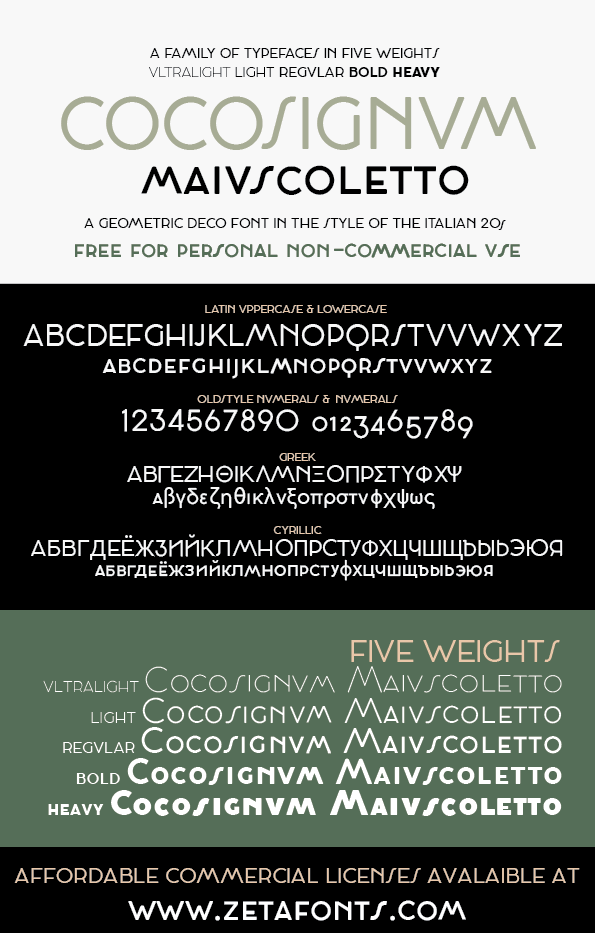
COCOSIGNUM Maiuscoletto takes inspiration from the typography of the italian thirties. The imperial uppercase with its propaganda deco overtones is softened by a cursive lowercase geometric script in the Corsivo Italico version. It comes in two styles and five weights, covering over forty languages using latin alphabet, as well as greek and cyrillic. ---- This font is for PERSONAL USE ONLY! For commercial license please visit our site: http://www.zetafonts.com/cocosignum For more info on our licence: http://www.zetafonts.com/licensing CONTACT US: website: http://www.zetafonts.com have a question?: info@zetafonts.com |